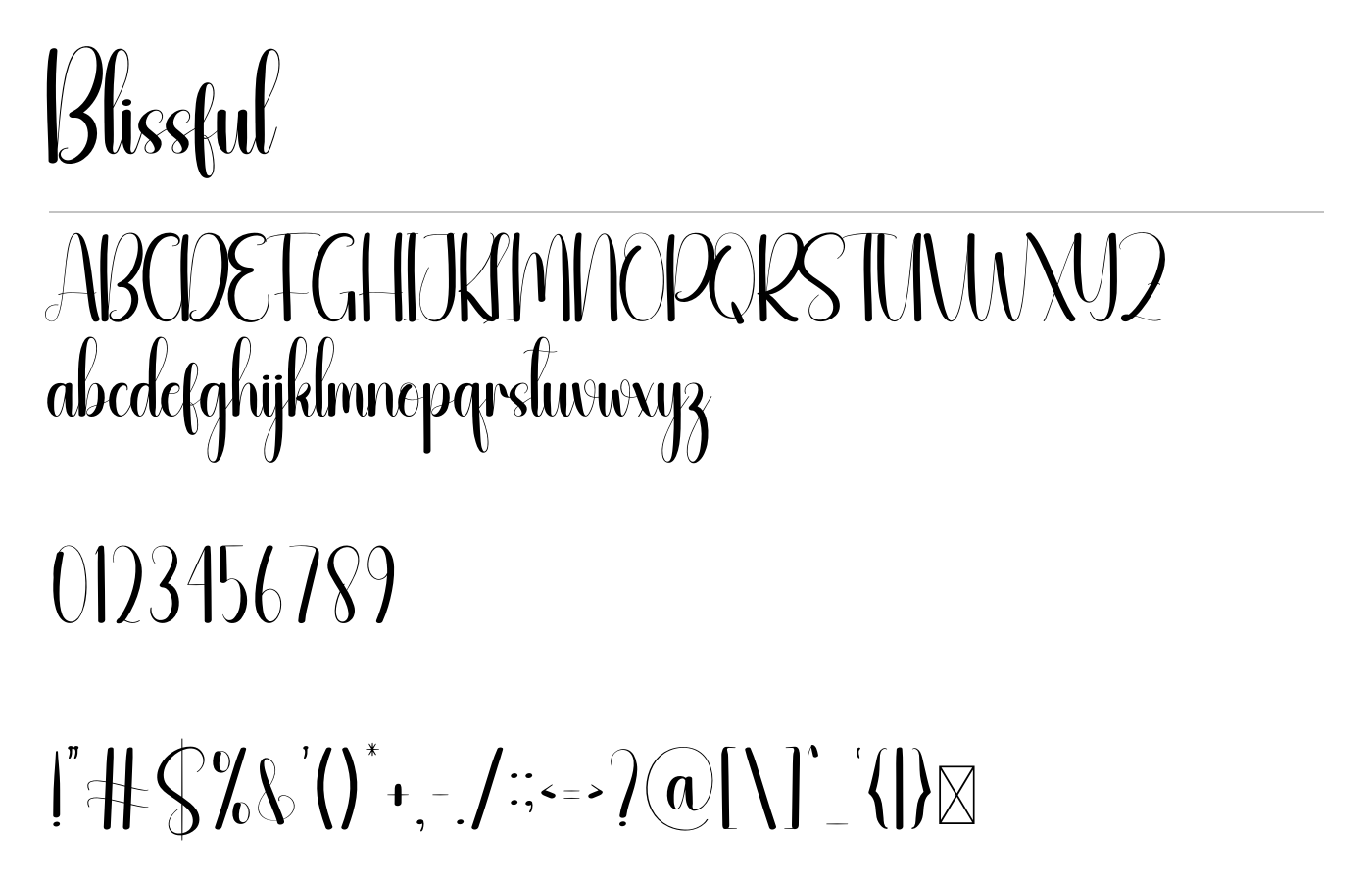
Blissful is a tall, elegant script font with a delicate balance between thin and thick strokes, featuring playful swirls and flourishes that add a whimsical yet refined touch. Its high contrast and narrow letterforms make it perfect for stylish branding, invitations, and feminine designs where a light and graceful personality is desired. This font works best in display uses such as logos and headlines, bringing a charming and sophisticated flair to any project.
Blissful Font